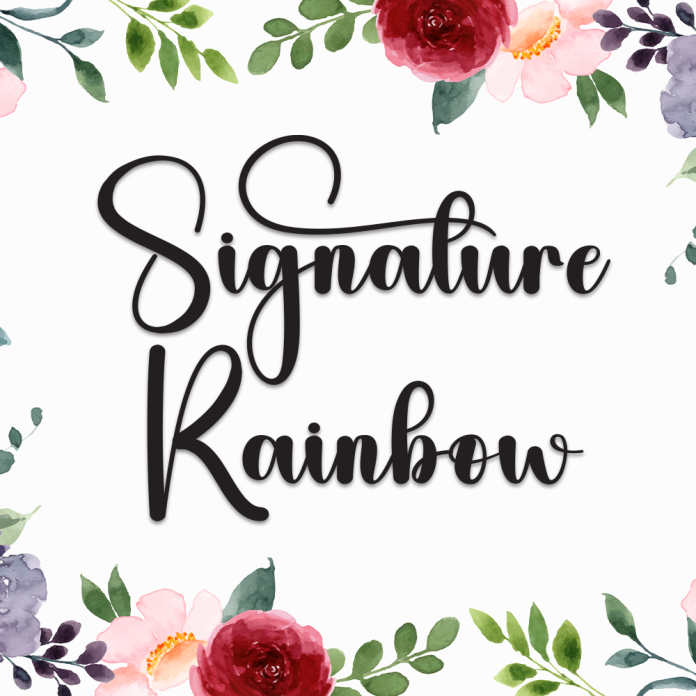
Signature Rainbow is a stylish and cheerful handwriting font that blends elegance with playful charm. Its smooth signature strokes and lively rhythm make it a perfect choice for vibrant, joyful designs that still carry a sense of sophistication.
Ideal for personal branding, social media quotes, lifestyle blogs, fashion logos, and colorful packaging, Signature Rainbow brings a spark of personality and creativity to your designs.
Elegant and trendy handwritten signature style
Smooth curves with a touch of playfulness
Perfect for modern branding, quotes, blogs, and stylish stationery
Add color and class to your work with Signature Rainbow, the handwriting font that radiates personality and flair.